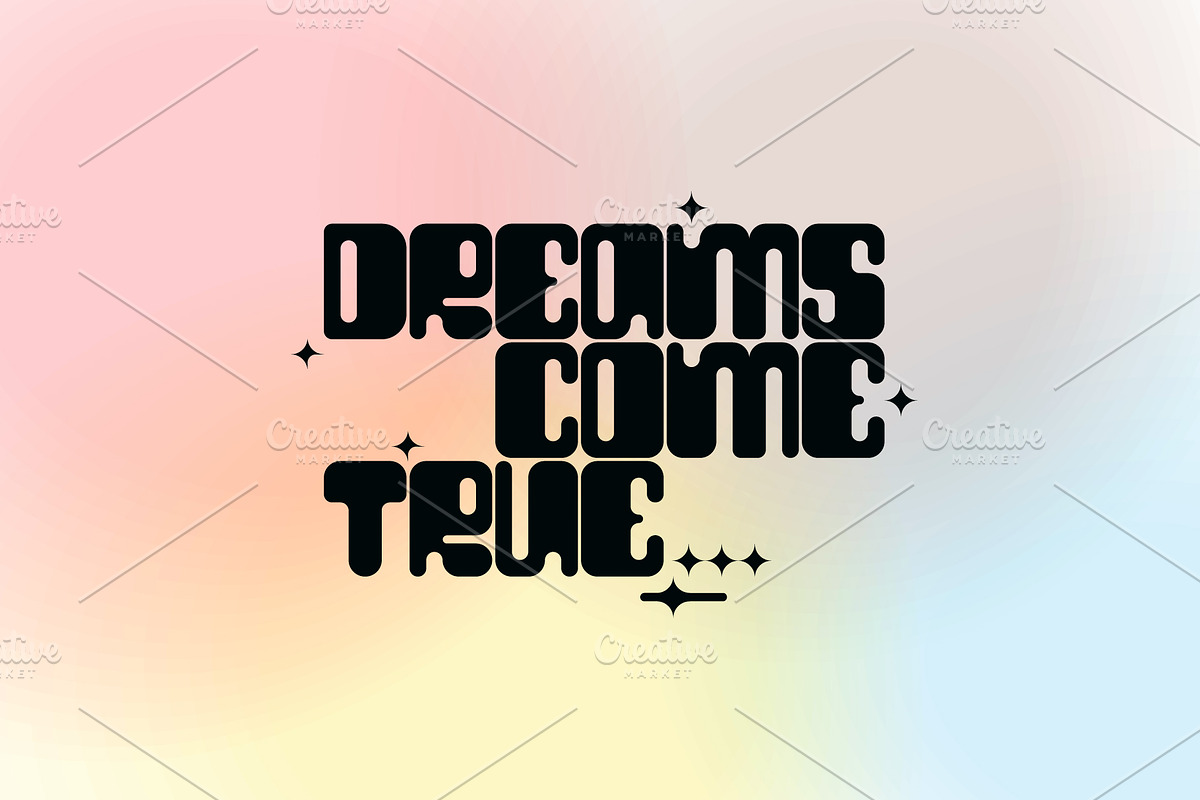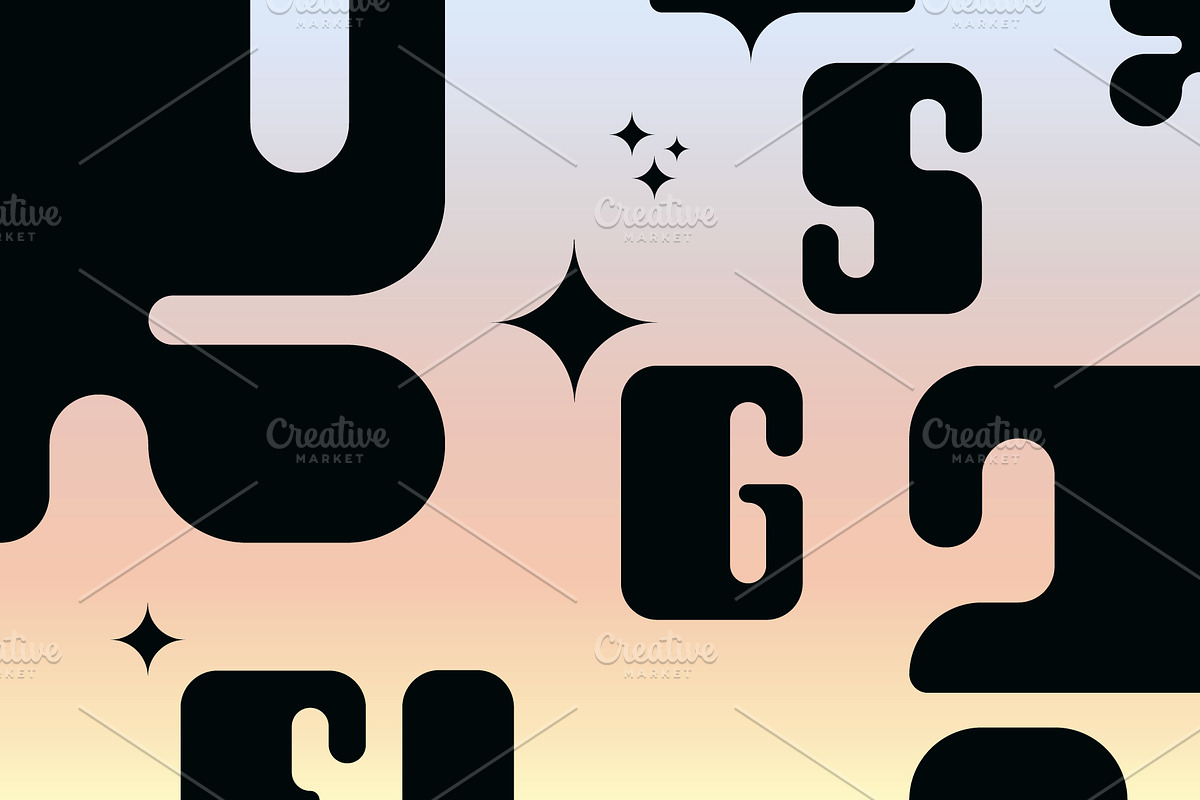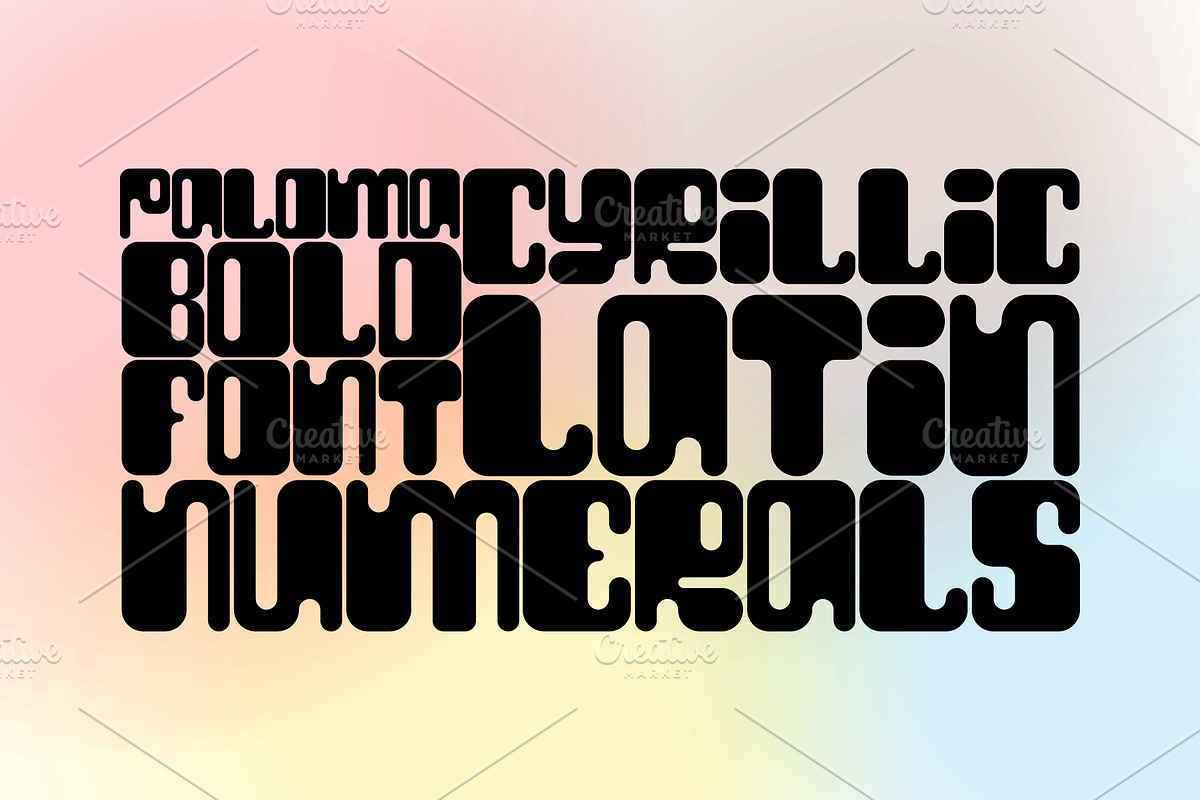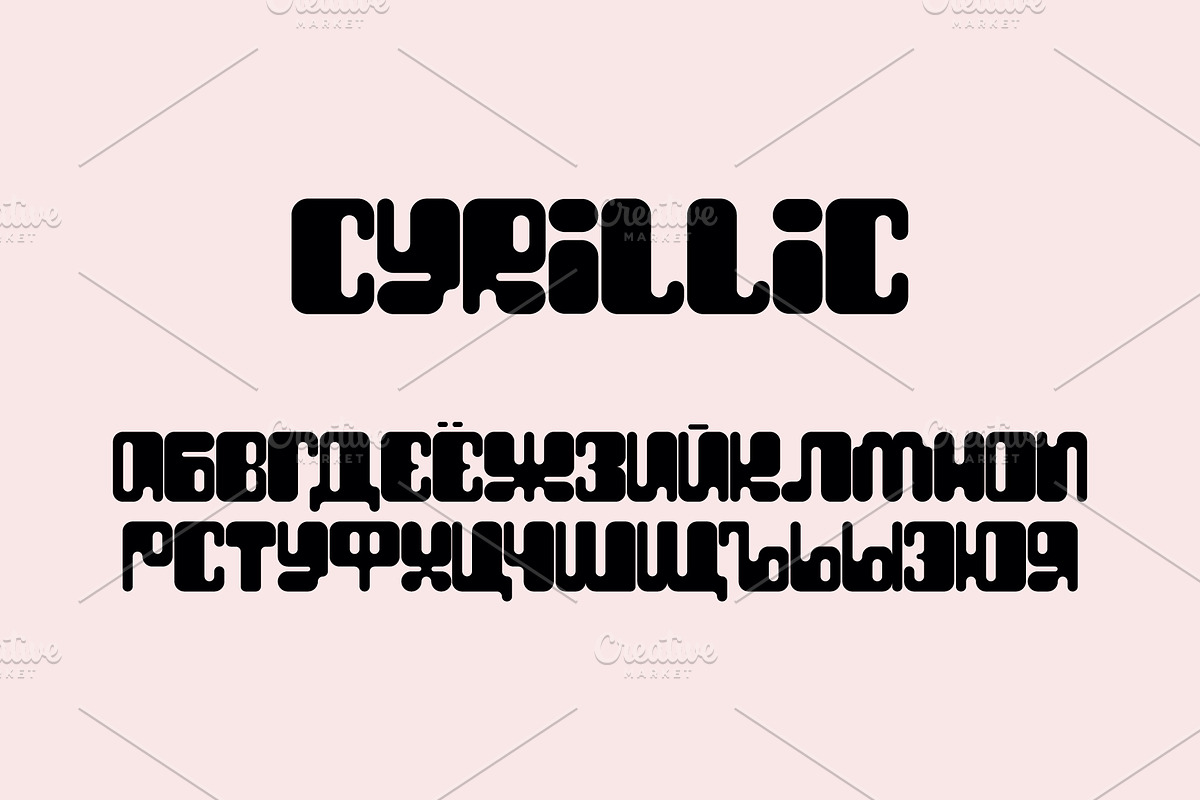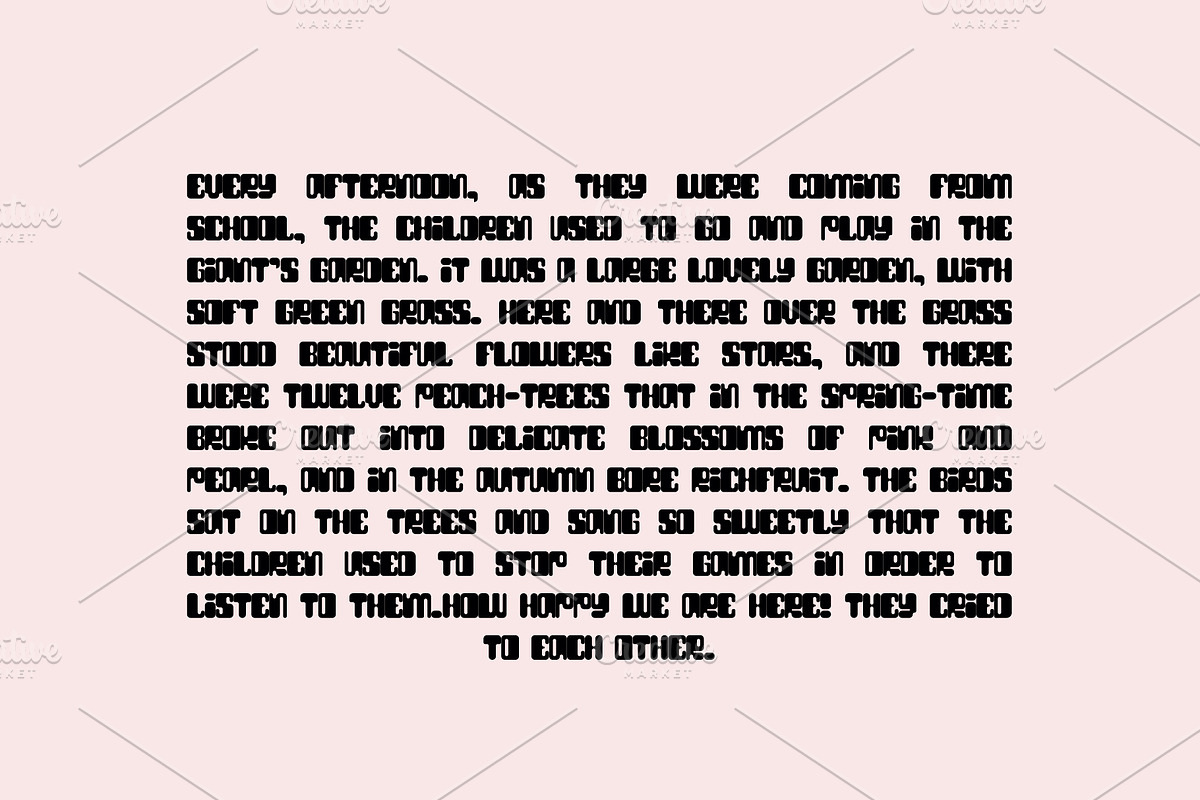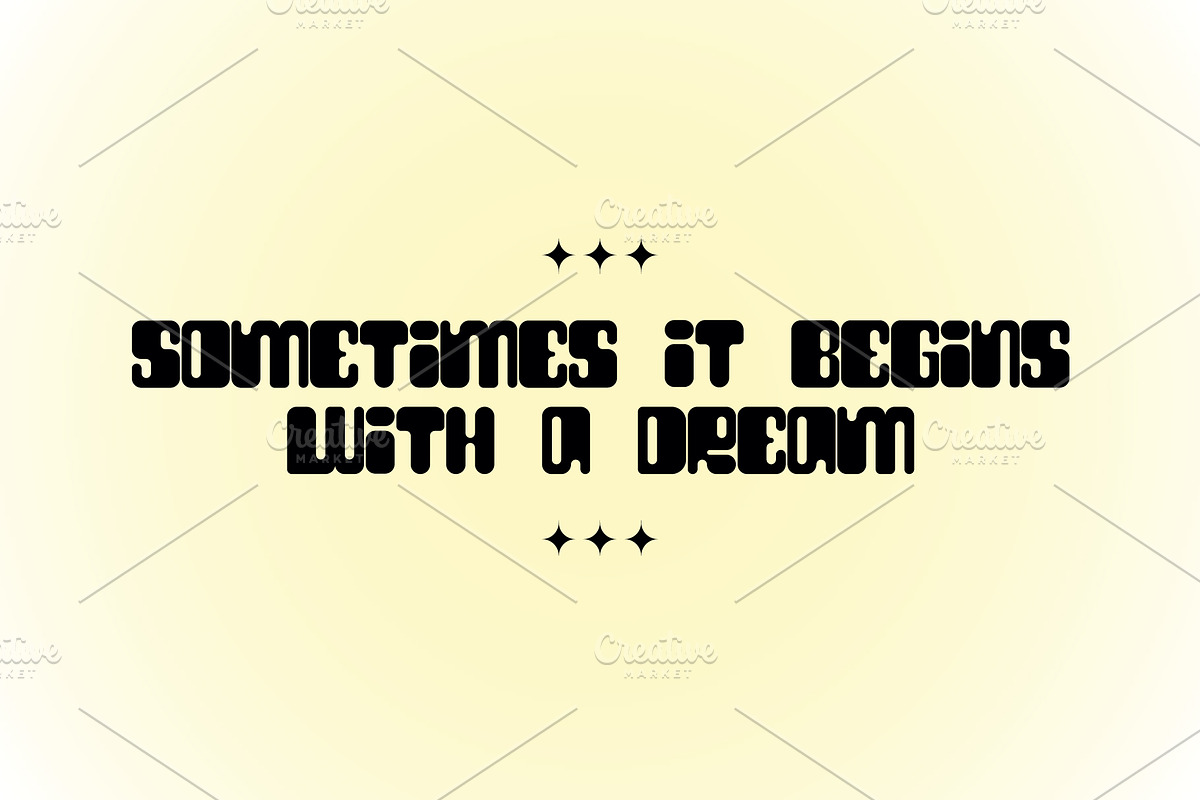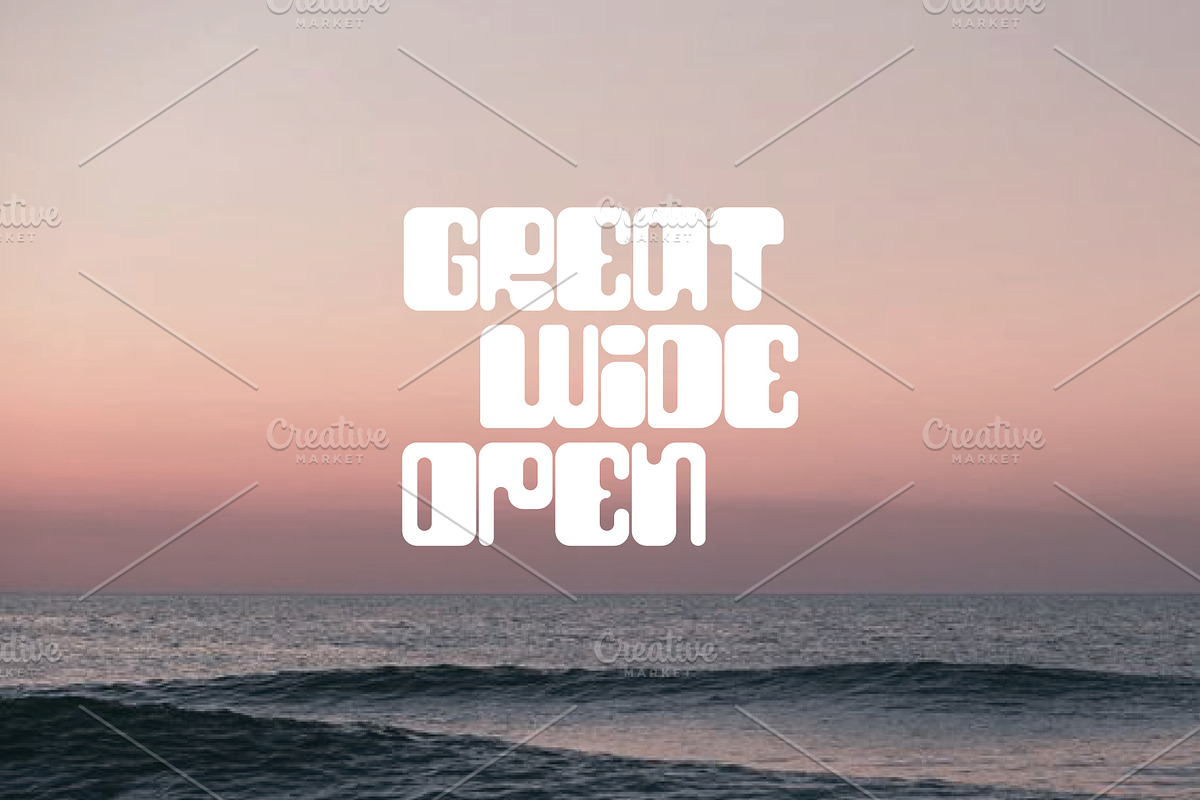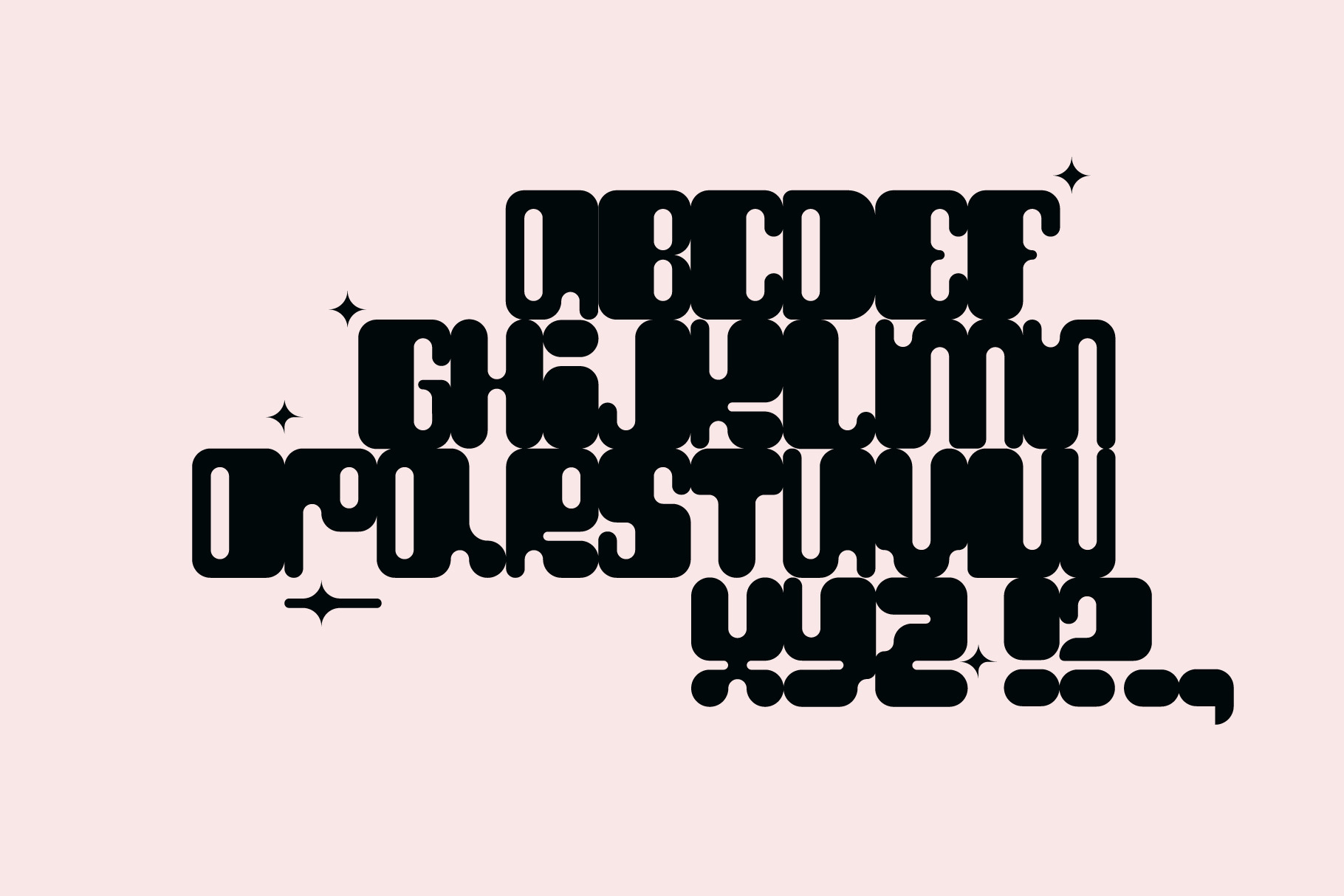
PALOMA Font
Hi everyone! This is my new font Paloma. I really like him, so simple, bold and unusual. And these stars that turned out in the letter pattern. The letter K inspired me to create it. it's like a bird. The font is suitable for creating wordmarks, titles, taglines.
It is in 2 versions : Latin and Cyrillic.